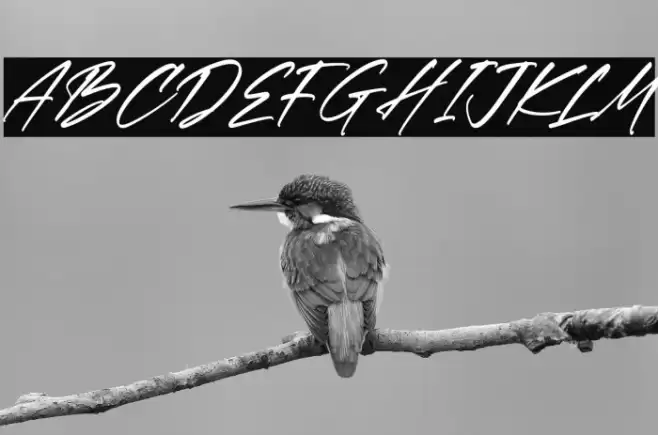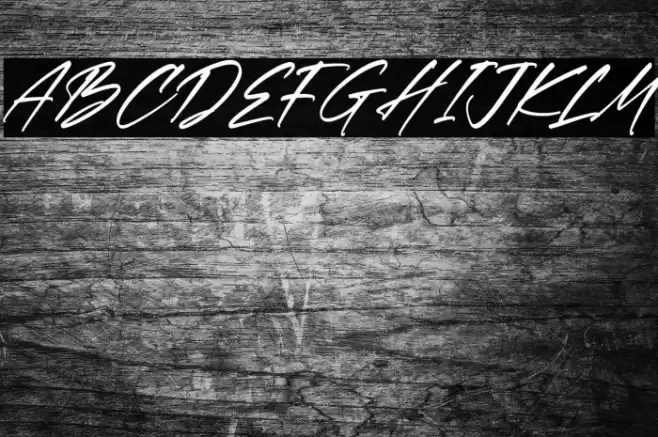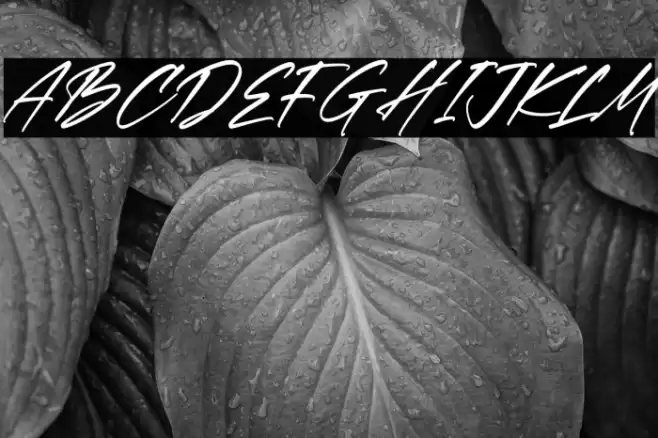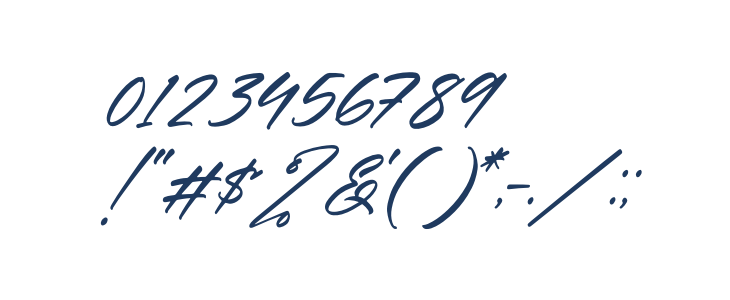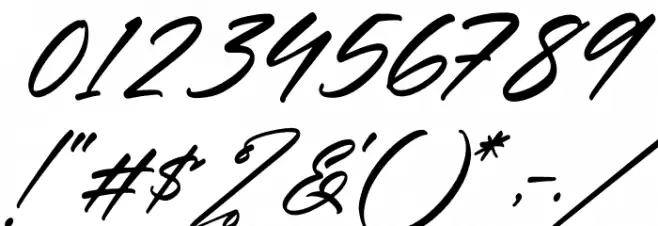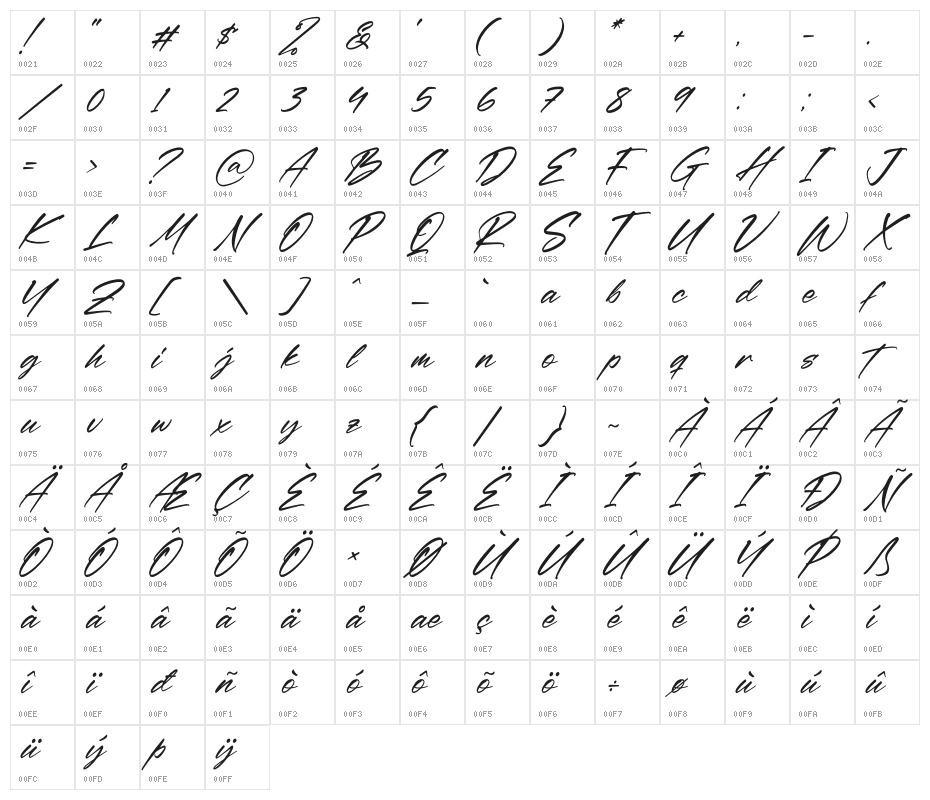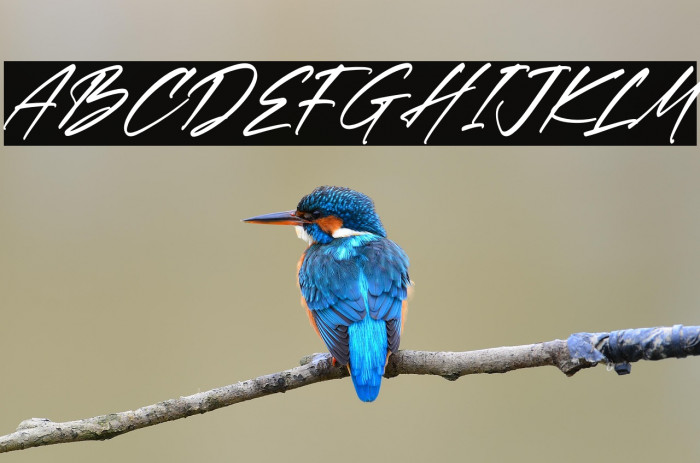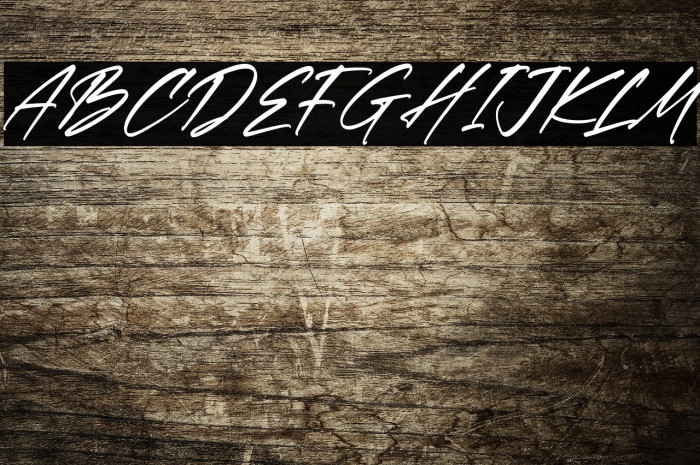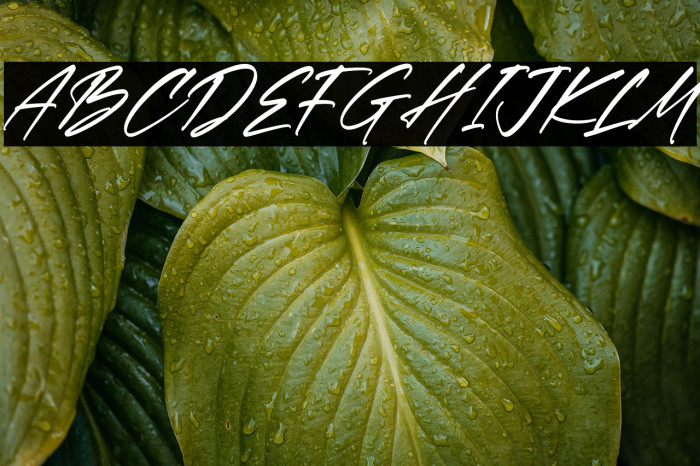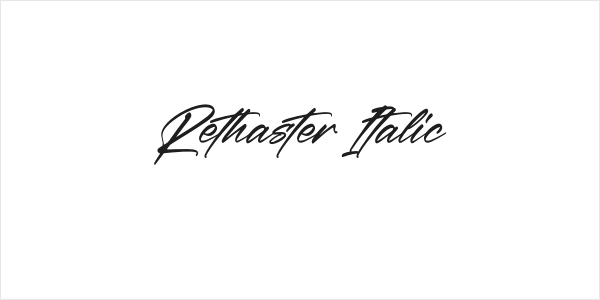
Rethaster Italic Font
Rethaster Italic Description
This font exudes a dynamic and expressive style, characterized by its fluid, cursive script. The letters are elegantly slanted, giving a sense of motion and grace. The strokes are bold and confident, with varying thickness that adds a lively contrast. Each character flows seamlessly into the next, creating a harmonious and connected appearance. The uppercase letters are grand and sweeping, while the lowercase letters maintain a consistent rhythm and balance. The numerals and special characters are crafted with the same attention to detail, ensuring a cohesive look across all elements.
A dynamic, cursive script font with bold, fluid strokes and elegant slant from Uncategorized fonts.
- Proposed Projects: Ideal for wedding invitations, branding, logo design, and elegant packaging.
- Use Case: Logos, Invitations, Branding